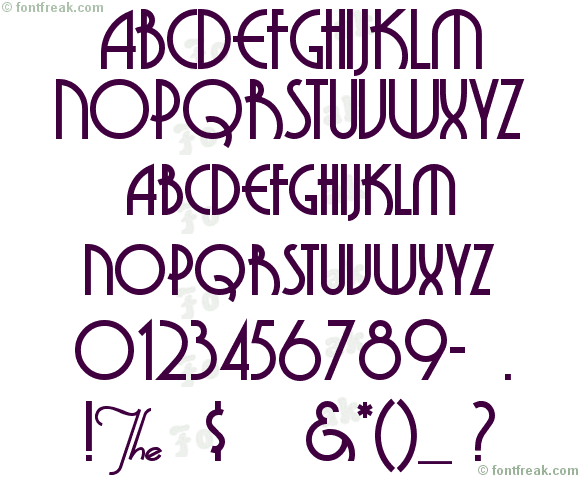
Grenadier
Grenadier, designed by Nick Curtis in 2000, is a striking display font that showcases a unique blend of modern sensibilities and classic typographic elegance. This freeware font is characterized by its bold, geometric forms and distinct contrast in stroke weight, making it an eye-catching choice for various creative applications. The spacing is thoughtfully crafted, allowing for clarity and legibility, while the decorative elements add a touch of personality that elevates any project.
This font excels in a variety of use cases, including wedding invitations where its boldness can convey a sense of celebration and joy. It also makes a strong statement in movie posters, where the eye-catching design can draw in viewers and create a memorable visual impact. Restaurant menus can benefit from Grenadier’s unique style, providing an inviting and modern appearance that enhances the dining experience. Additionally, it works well for branding materials, offering small business owners a distinctive voice that sets them apart in a competitive market. Content creators will find it particularly appealing for social media graphics, where striking visuals are key to engagement.
Grenadier appeals to a diverse audience, including graphic designers seeking fresh typefaces, small business owners wanting to establish a recognizable brand identity, and content creators looking for a font that stands out in a crowded digital landscape. The versatility of this font, combined with its approachable style, makes it a valuable addition to any designer's toolkit.